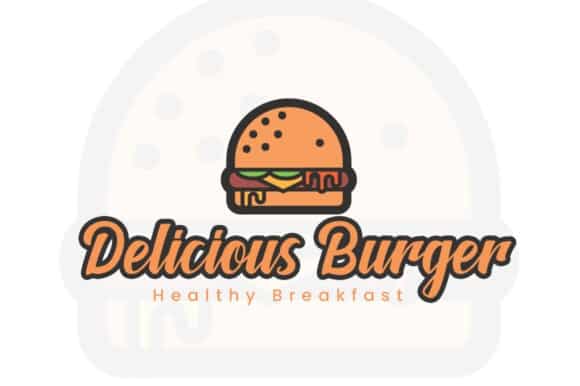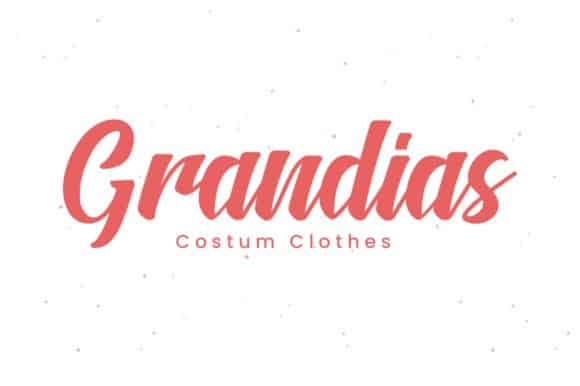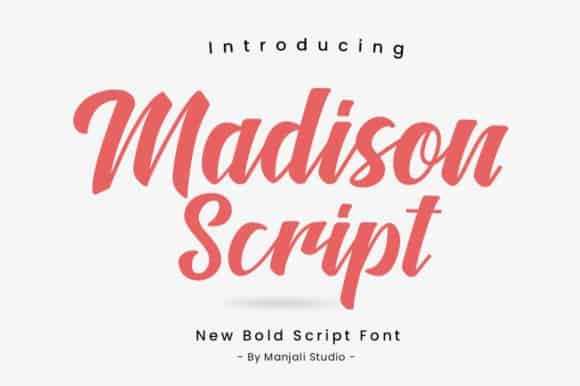
Madison Script Font is a handwritten script font with a natural texture style that will inspire any new design project with its authentic feel!. It’s designed and shared by Manjalistudio. This typeface is an exquisite hand-drawn font, masterfully designed to become a true favorite. Madison Script Font maintains its classy calligraphic influences while feeling contemporary and fresh. Fall in love with it and bring your projects to the highest levels!
Madison Script